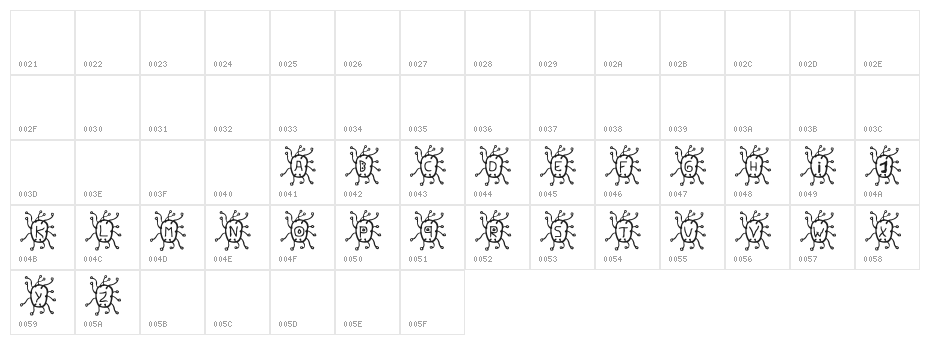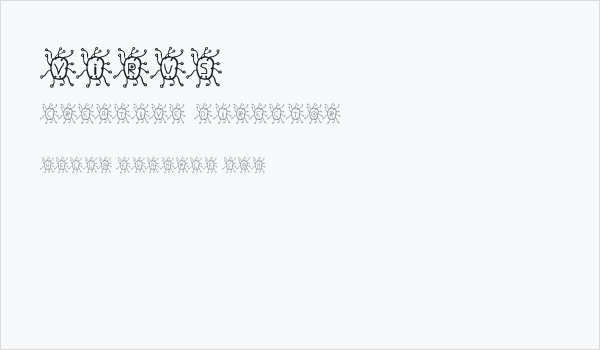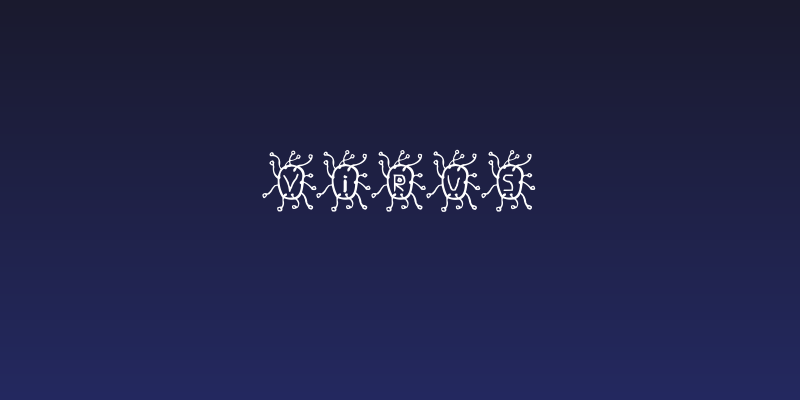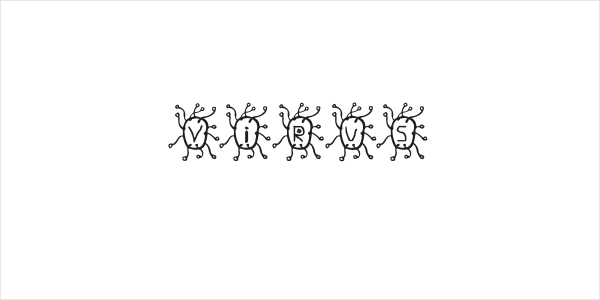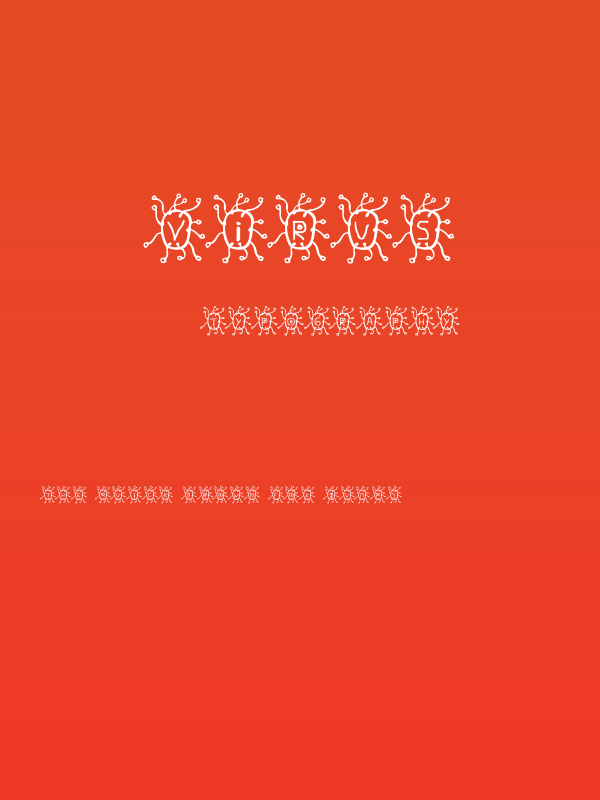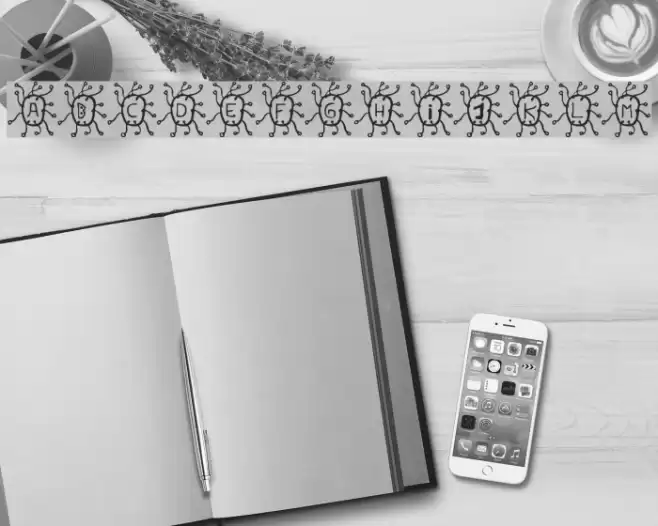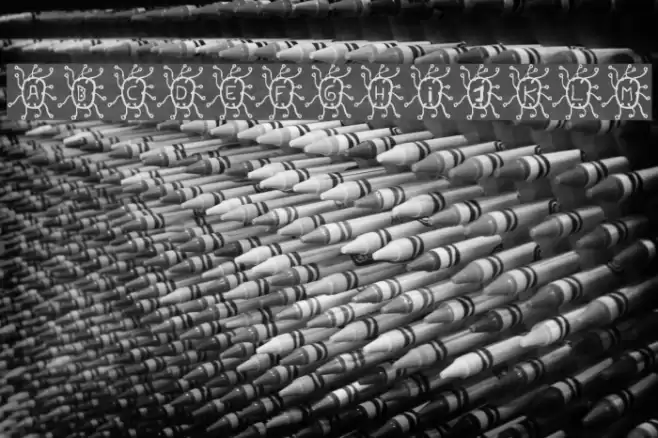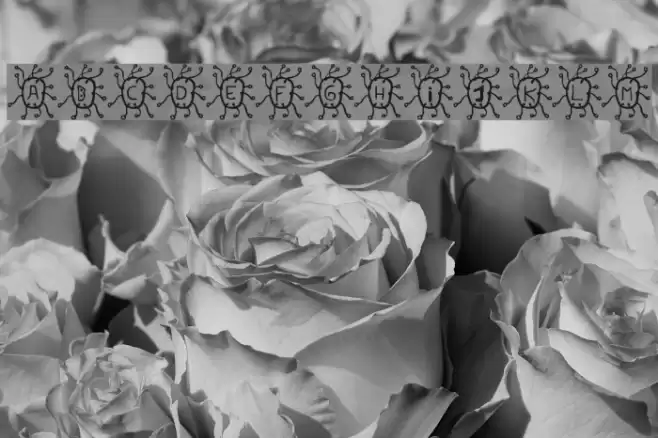
Virus Font
Virus Description
This unique and playful font features letters encased within virus-like shapes, each character surrounded by a spiky, organic outline that resembles a microscopic organism. The design is highly decorative, with each letter maintaining a consistent style that emphasizes creativity and novelty. The font's intricate details make it stand out, offering a visually engaging experience. Its whimsical nature and distinctive appearance make it suitable for projects that aim to capture attention and convey a sense of fun or quirkiness. The font is not suited for body text due to its complex design but excels in decorative contexts.
| Proposed Projects | Ideal for children's book covers, science-themed posters, playful branding, and novelty items. |